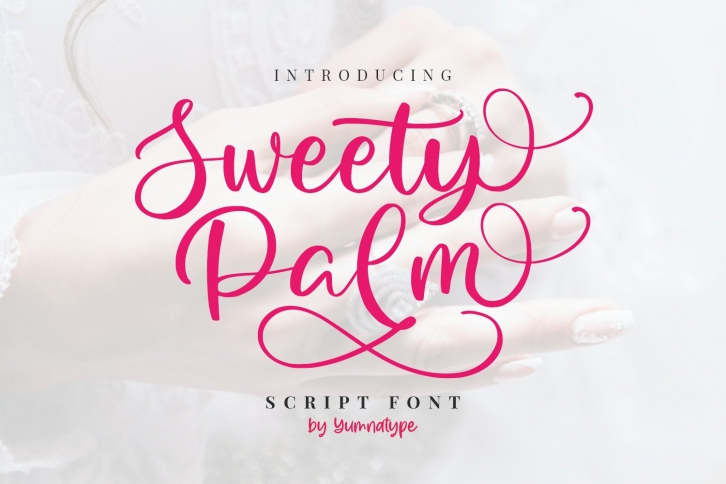
Sweety Palm is a beautiful font that was designed by Yumna Type. It's a great choice for designers and creatives who need such a font. It was released on December 4, 2020 and the file size is 10.72 MB. Sweety Palm may give a more youthful, expressive and casual look to your project. It is a very beautiful, refined, elegant, and high-quality font.